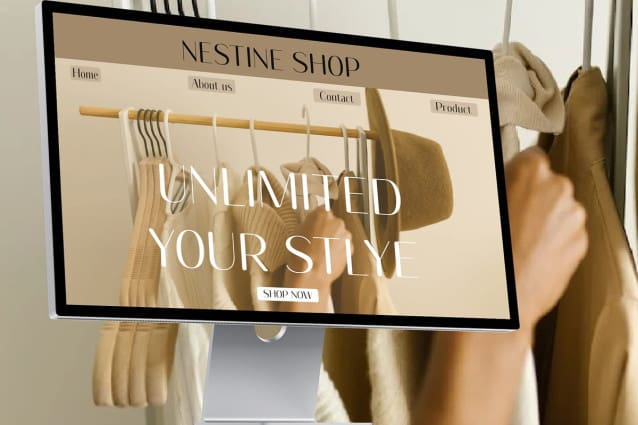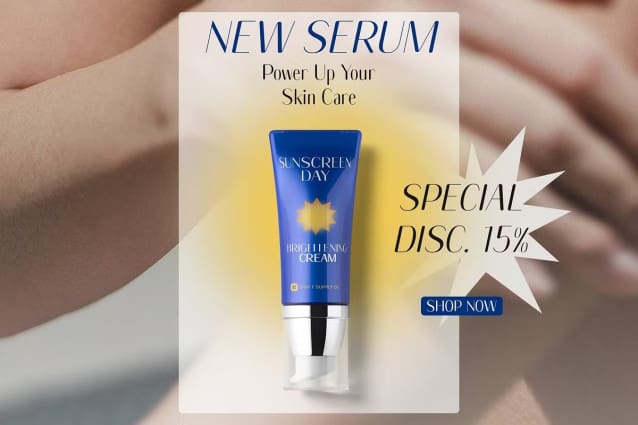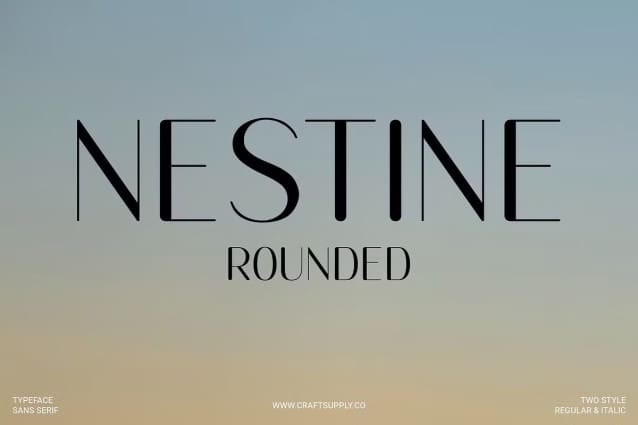
Nestine Rounded Font
Nestine Rounded Font: The Perfect Blend of Elegance and Versatility. Grotesque Sans Serif Design Nestine Rounded boasts a sleek grotesque sans serif design that exudes professionalism and sophistication. Its clean lines and balanced proportions make it ideal for a wide range of corporate applications.
High Contrast Typography With its high contrast letterforms, This font demands attention and makes a bold statement. The contrast between thick and thin strokes adds visual interest and ensures readability in various contexts.
Suitable for Corporate Use Designed with corporate needs in mind, This font is perfect for branding, advertising, and corporate communications. Its modern aesthetic and refined appearance elevate any corporate identity or marketing material.
Rounded Stem Endings The rounded stem endings of This font soften its overall look and add a touch of warmth and approachability. This subtle detail sets it apart from traditional grotesque fonts and enhances its visual appeal.
Versatile Typeface for Corporate Communication This font combines the elegance of a grotesque sans serif with high contrast typography and rounded stem endings, making it an excellent choice for corporate branding and communication. Its versatility and modern aesthetic ensure it stands out in any corporate setting.